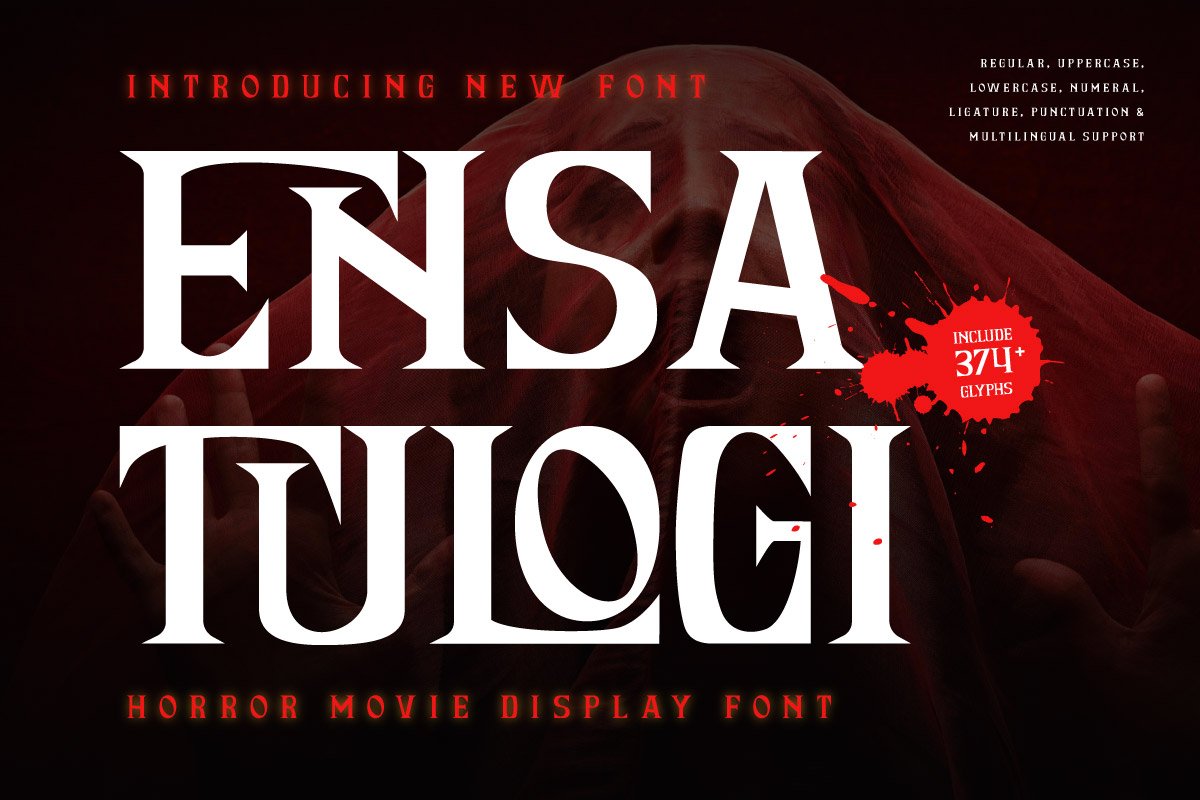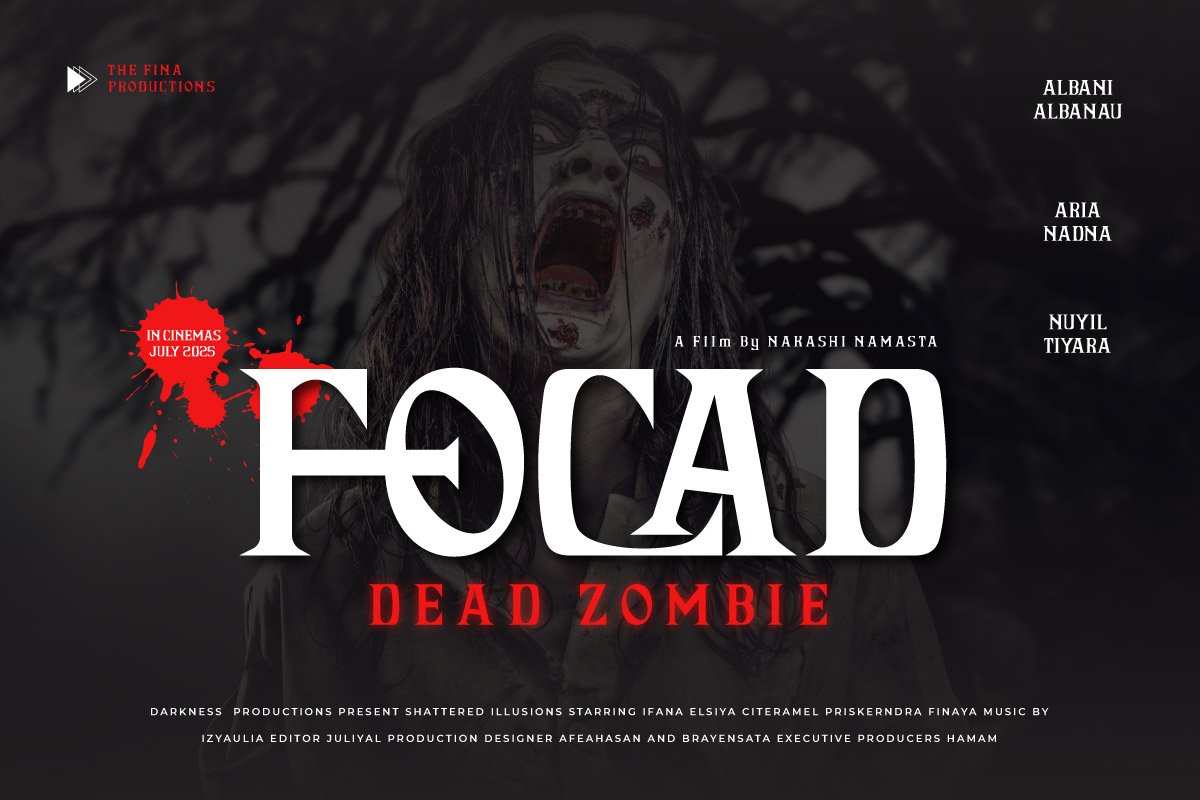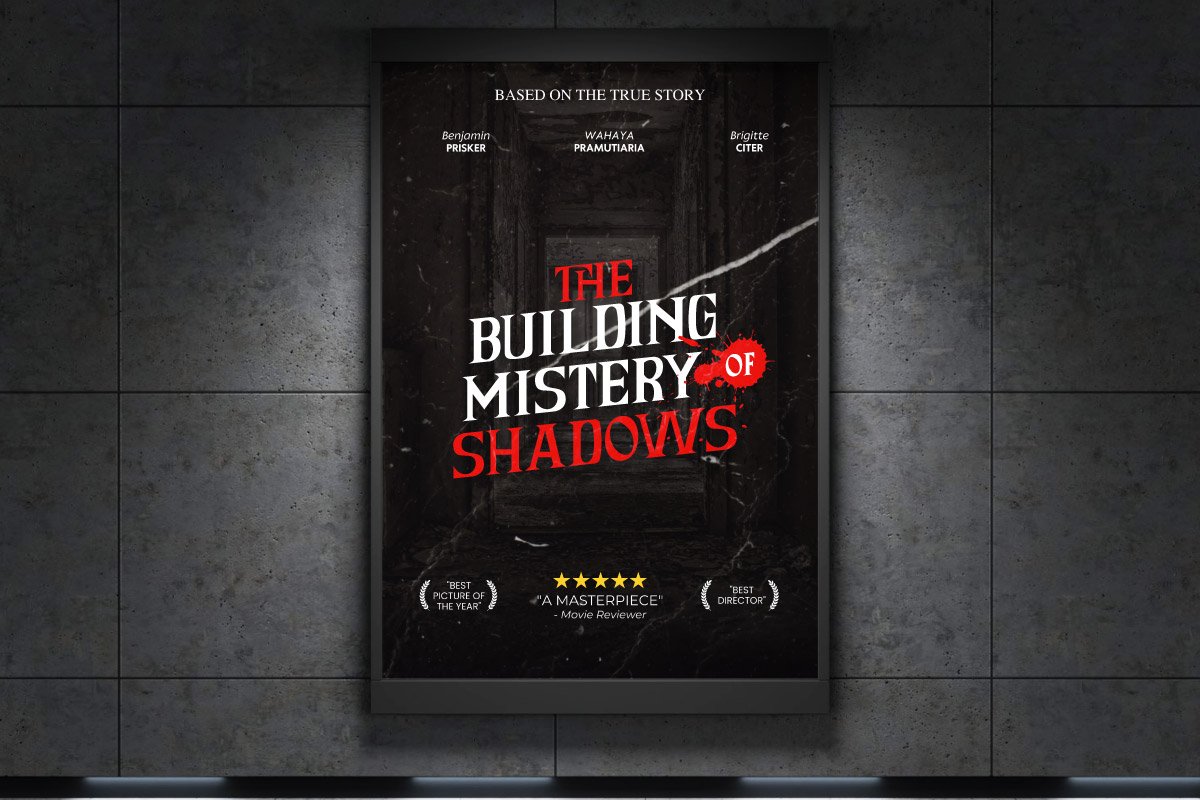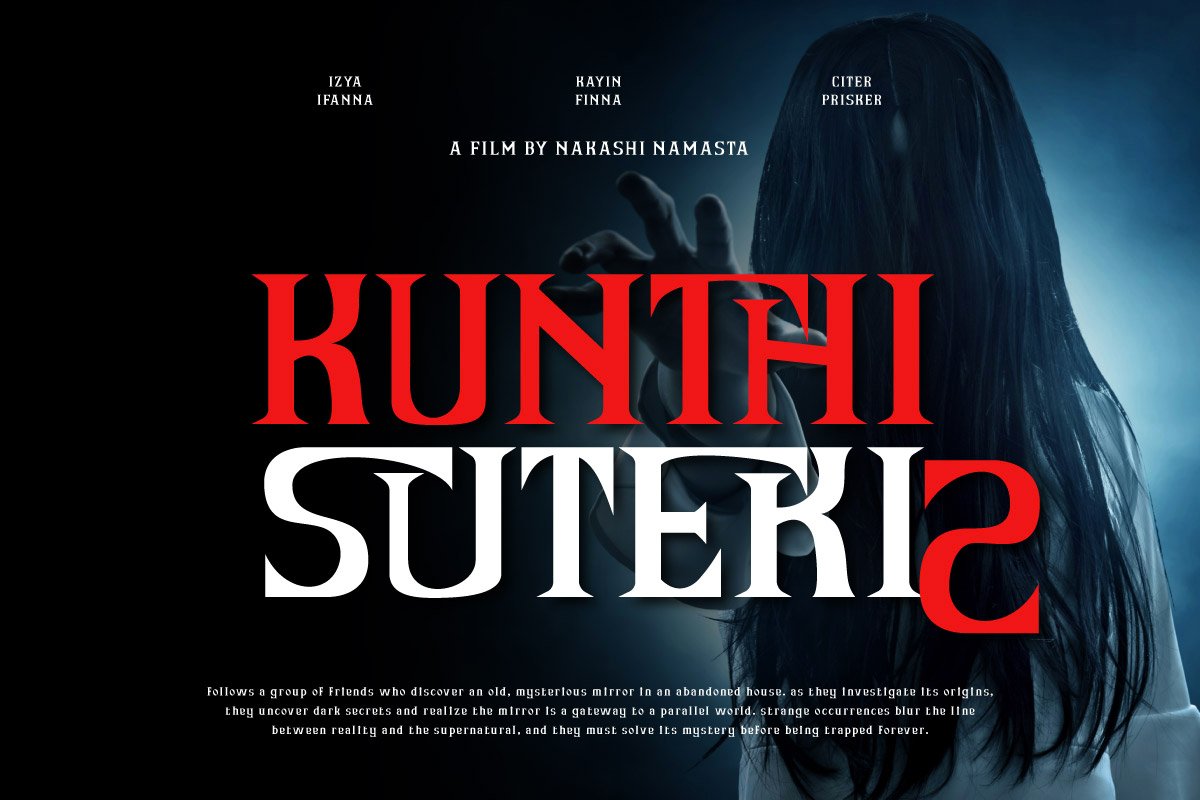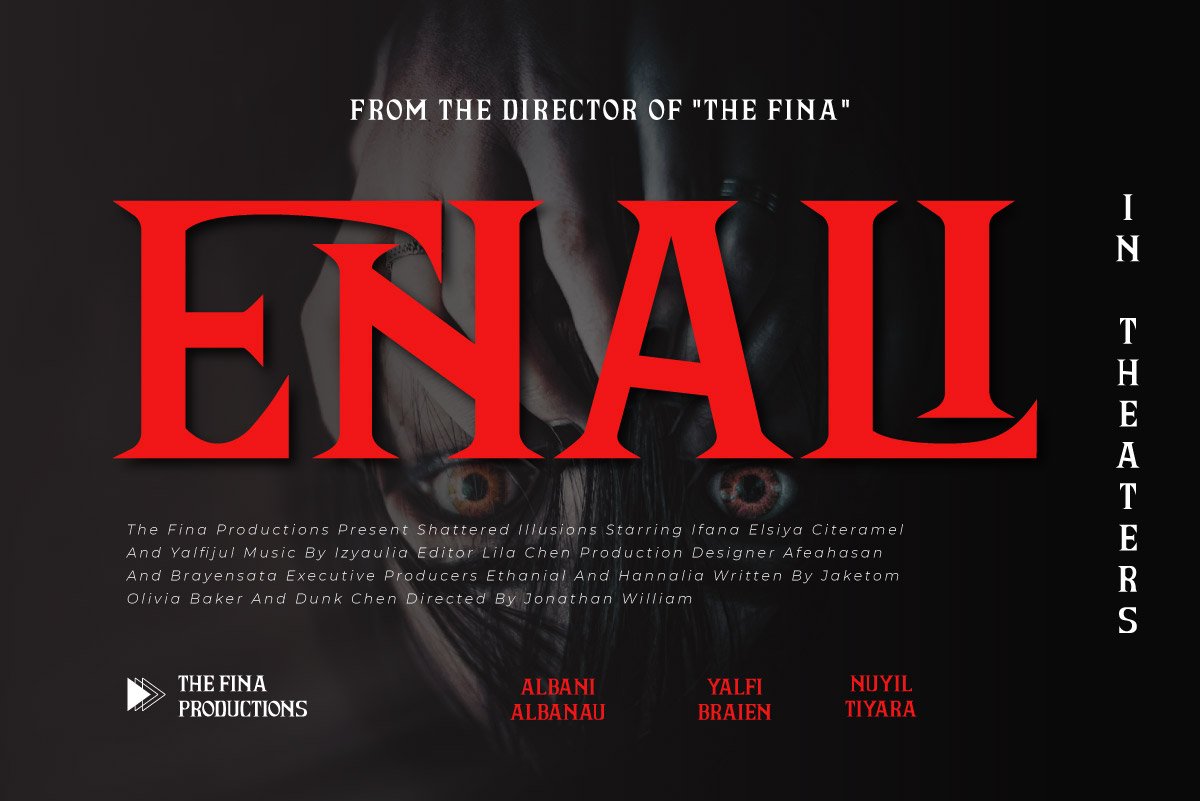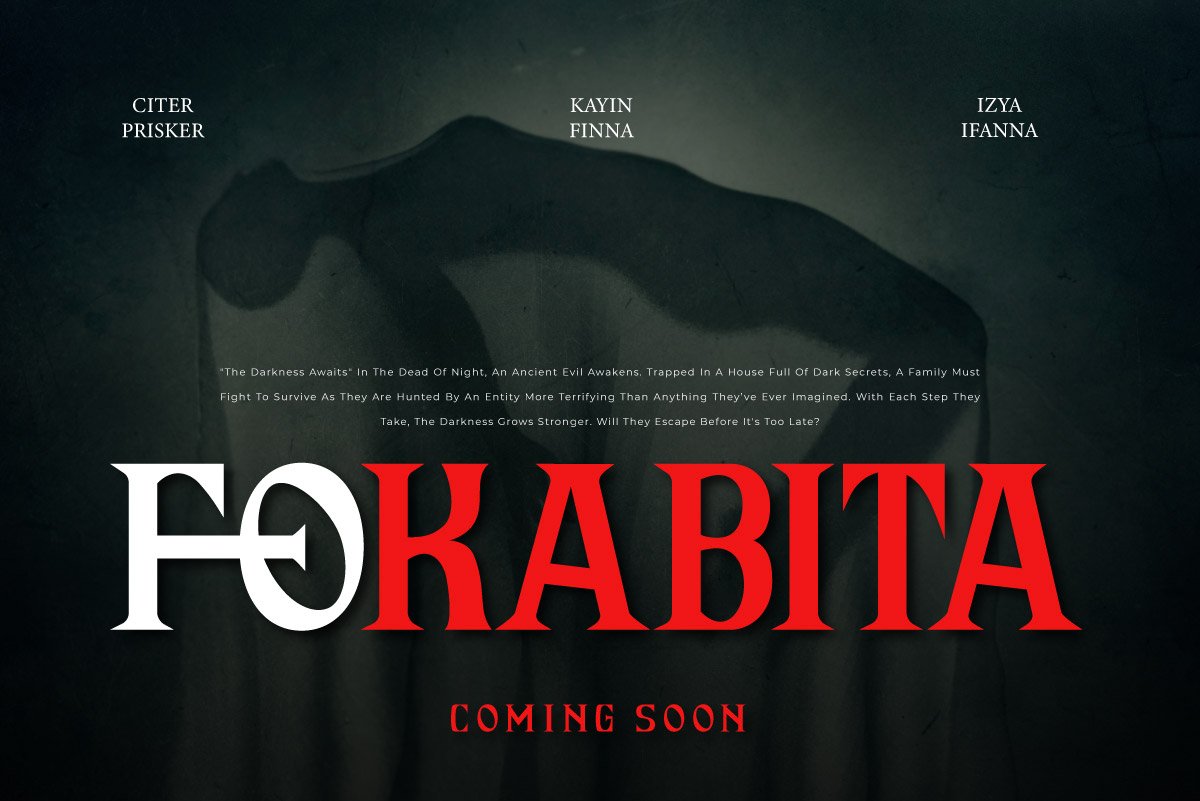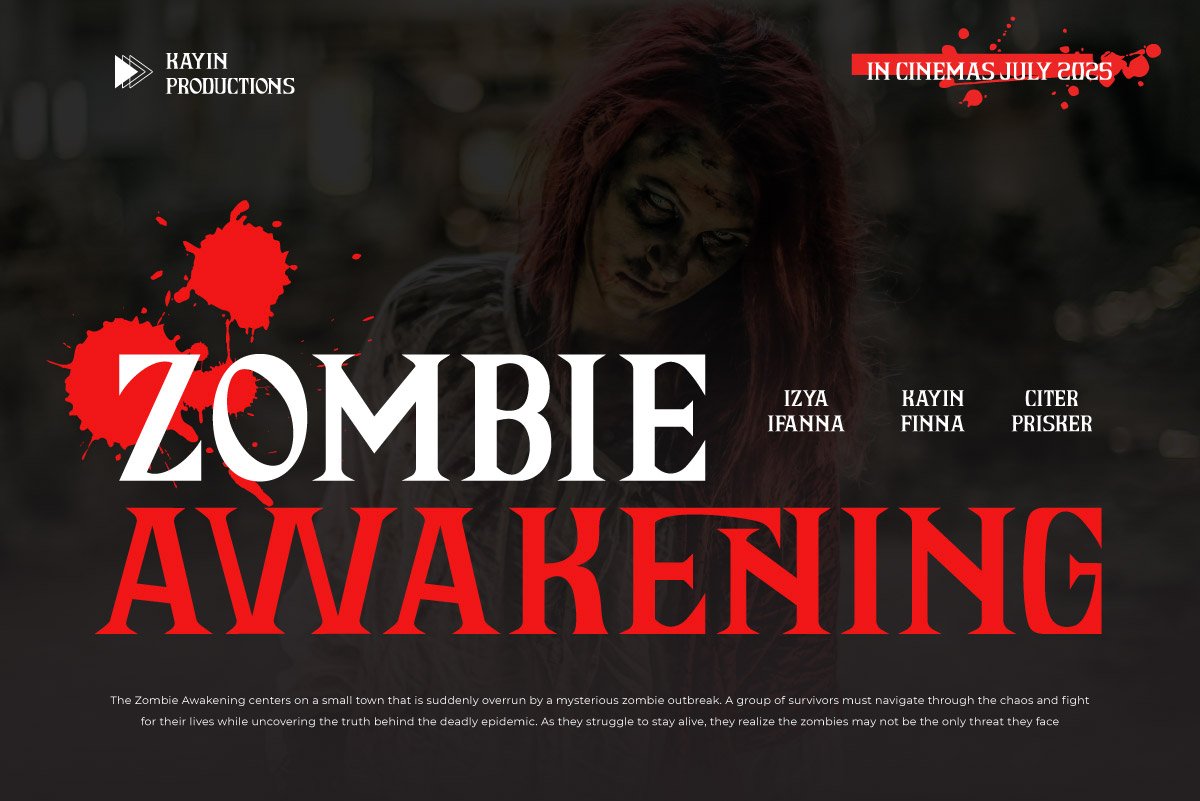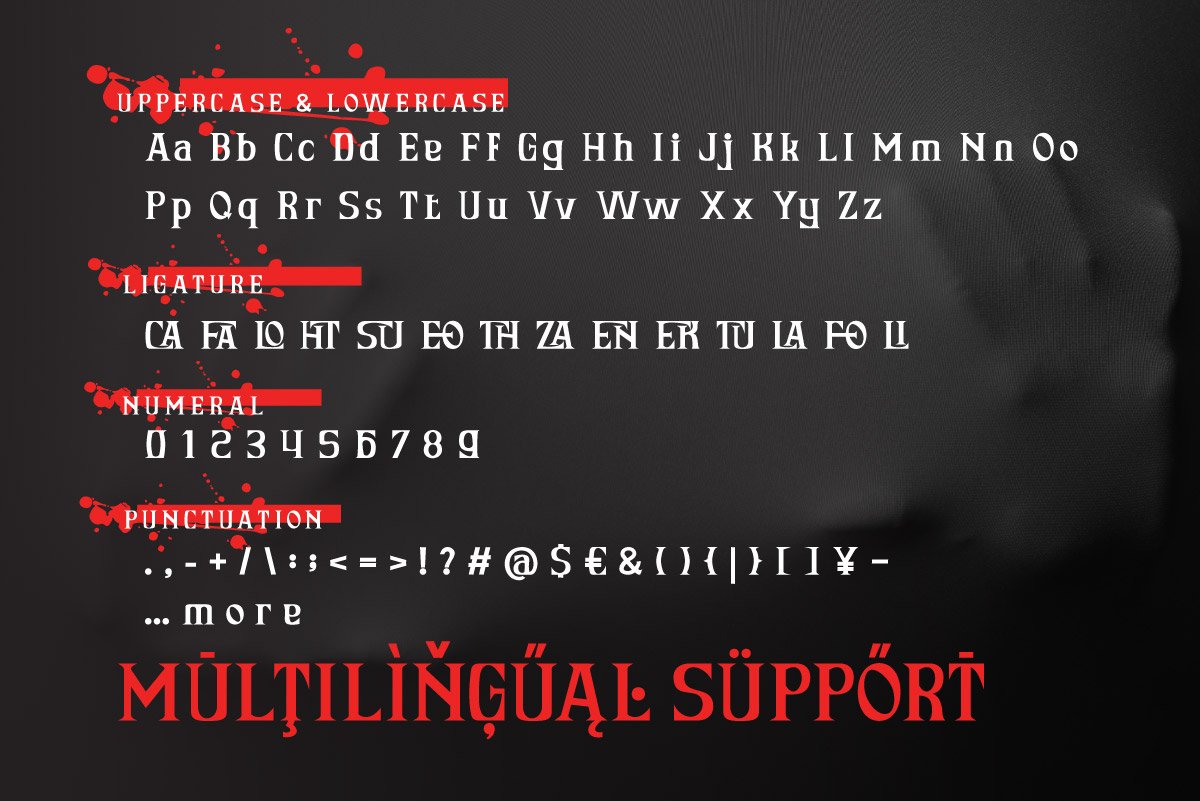
Ensatulogi – Display Horror Font
Ensatulogi is a bone-chilling horror display font designed to instill fear and mystery in any project. With its sharp, pointed edges and jagged letterforms, this typeface captures the essence of darkness, making it ideal for horror movie titles, eerie book covers, haunted house posters, Halloween-themed designs, and dark branding.
Inspired by classic horror aesthetics and gothic typography, Ensatulogi’s razor-sharp details and menacing strokes create an intense and unsettling visual experience. Each letter feels like a sinister whisper from the shadows, perfect for amplifying the suspense and thrill in your designs.
If you’re looking for a font that embodies terror, suspense, and fear, Ensatulogi is the perfect choice. Give your designs a menacing and unforgettable horror-themed touch with this uniquely crafted typeface!